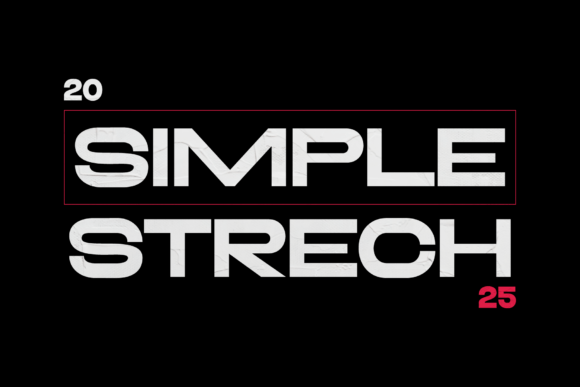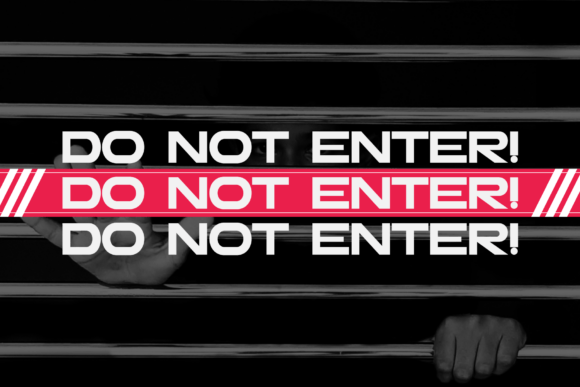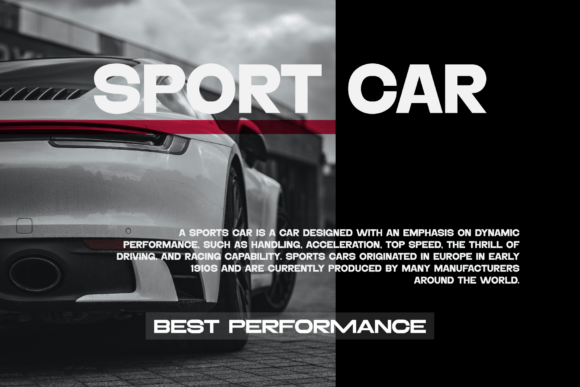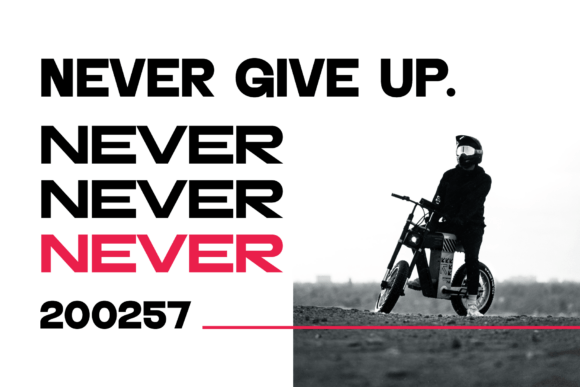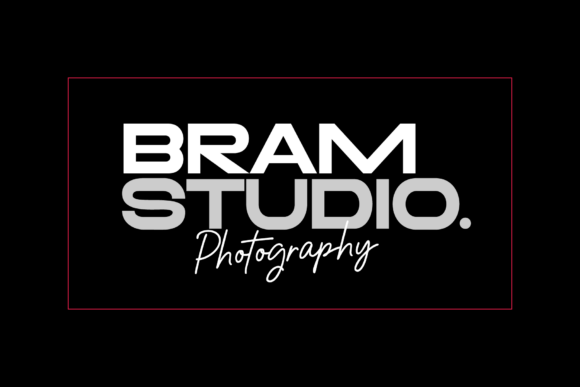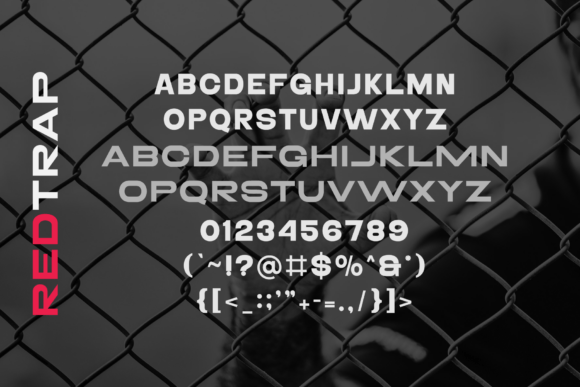
Introduction to Redtrap Font
Introducing “Redtrap” our bold, expanded sans serif font, designed to make your logo stand out with confidence and style.
Its clean lines and expansive character exude strength and modernity, making it the perfect choice for impactful branding With its bold presence and versatile appeal, this font ensures your logo leaves a lasting impression on any platform.
Key Features of Redtrap Font